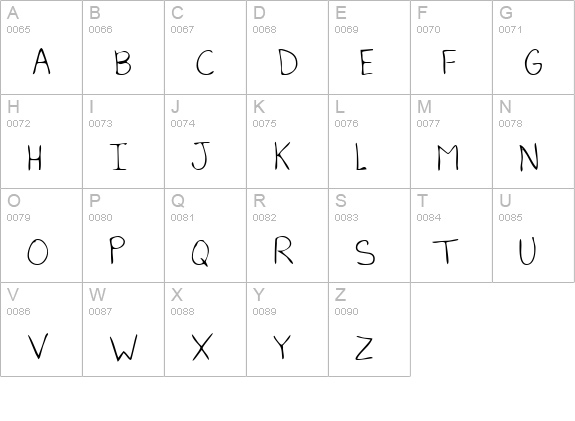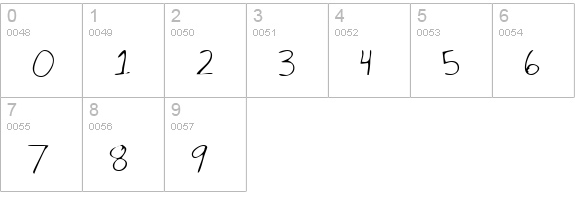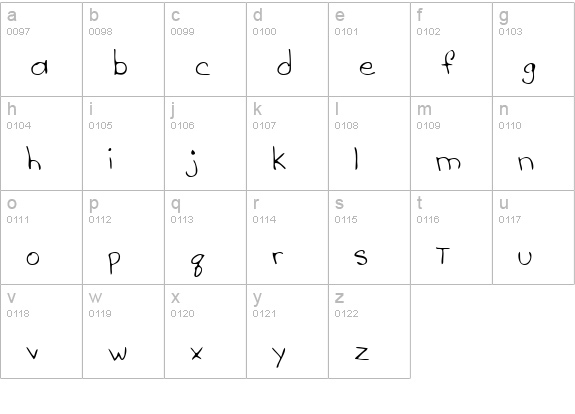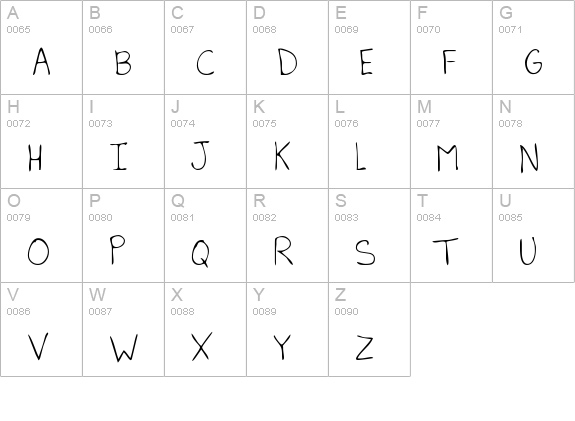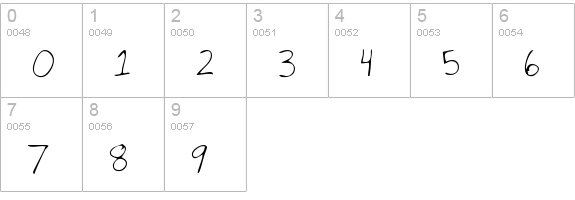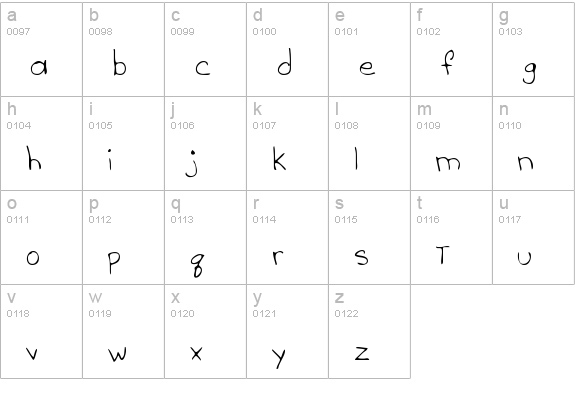
ChelsiesHand Regular Font Details
ChelsiesHand Regular is the standard, neutral variant in the ChelsiesHand typeface family \xE2\x80\x94 well suited to general body text, paragraphs, and standard typographic work.
ChelsiesHand Regular is a charming and versatile handwritten font that exudes a sense of warmth and friendliness. With its slightly irregular letterforms and flowing strokes, this font is perfect for adding a personal touch to your projects. Whether you're creating invitations, greeting cards, or branding materials, ChelsiesHand Regular will help your text stand out with its unique character. Best of all, ChelsiesHand Regular is available for free download at FontsMarket.com. So, don't miss out on this opportunity to enhance your designs with a beautiful and expressive font that will surely captivate your audience. Download ChelsiesHand Regular today and let your creativity flow freely!